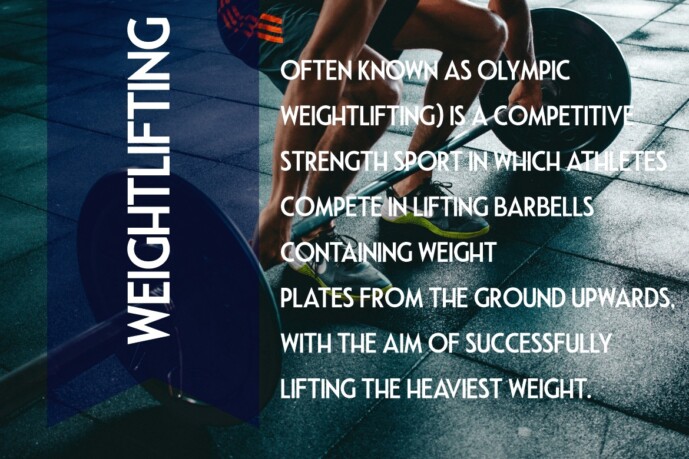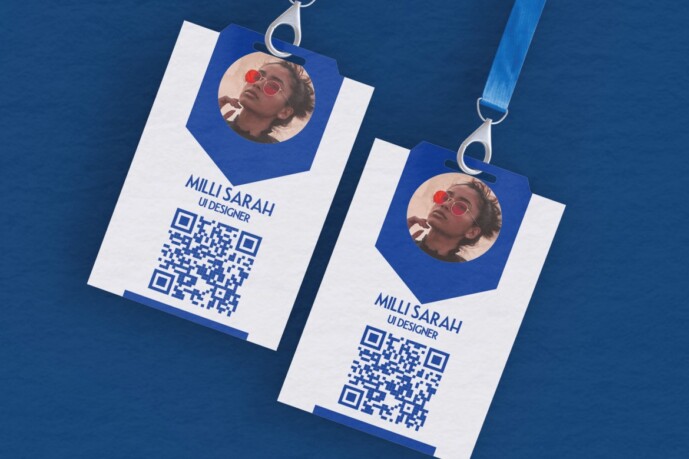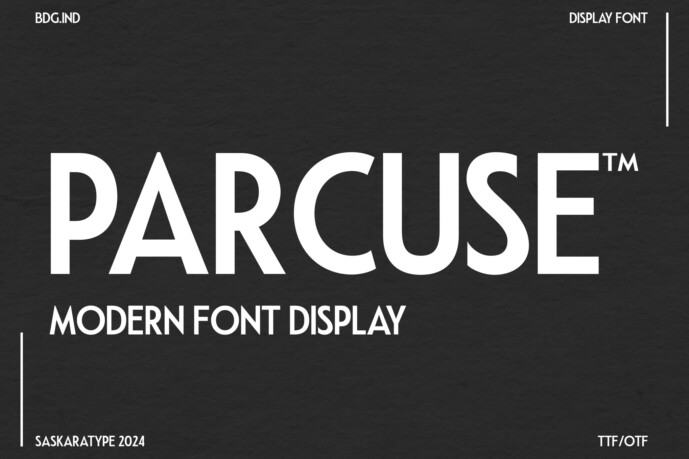
Parcuse Font
Parcuse Font is an elegant decorative Sanserif font with a touch of modernity that brings a powerful and dynamic touch. It is an ideal font for printing logos, labels, tapers, brochures, signs, craft brands, anything related to modern style, etc.